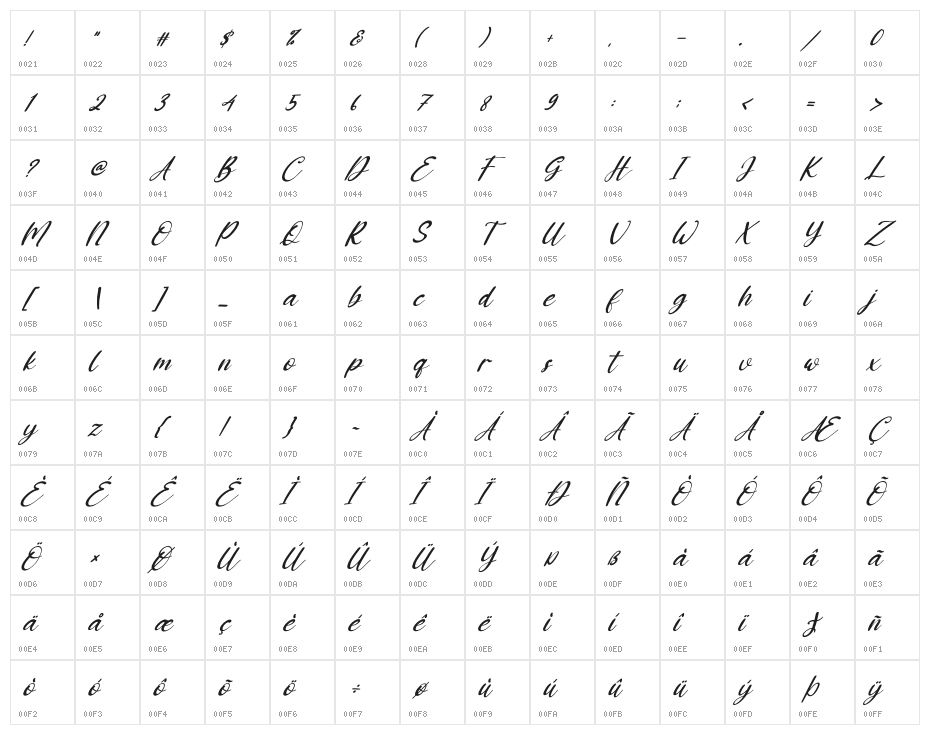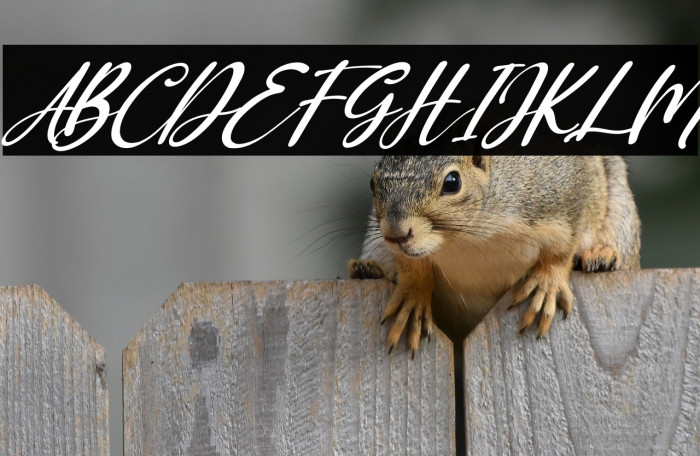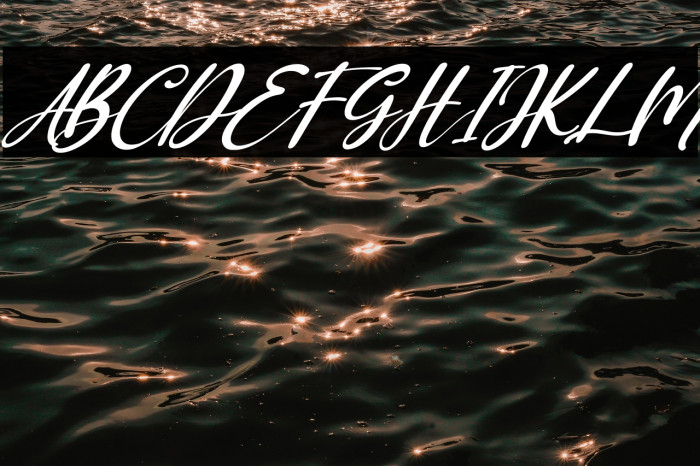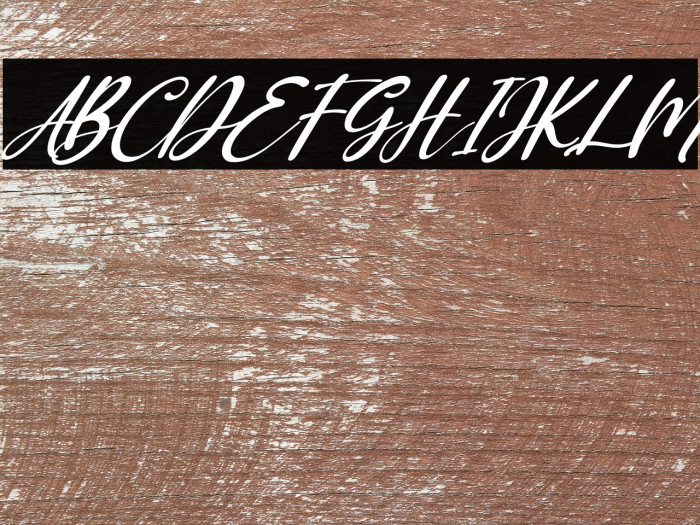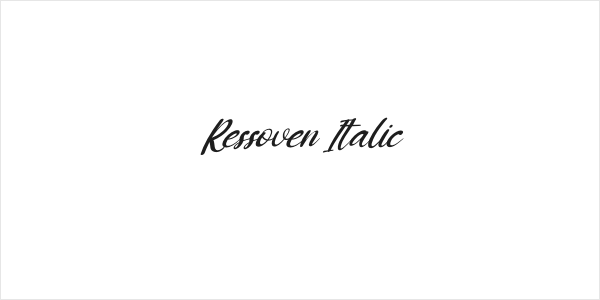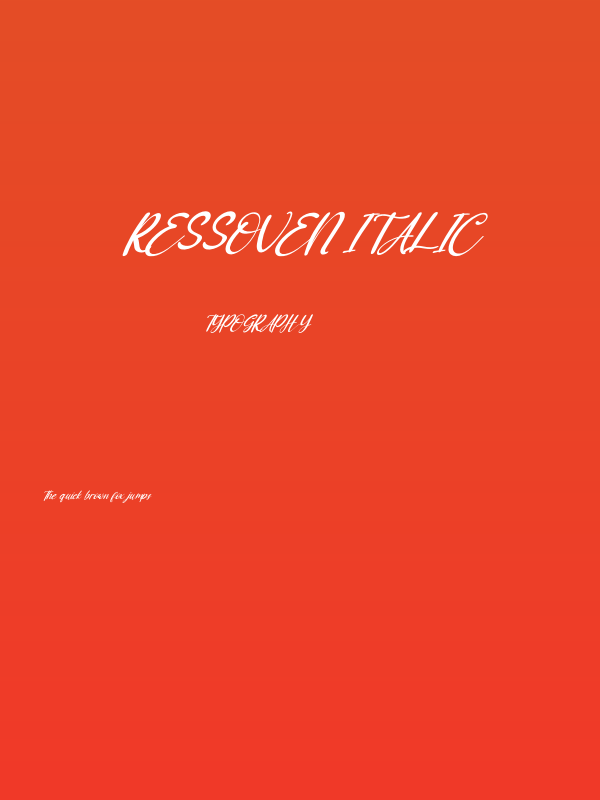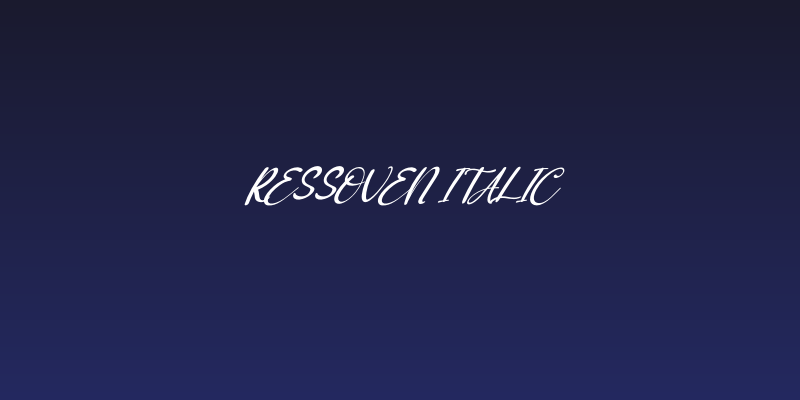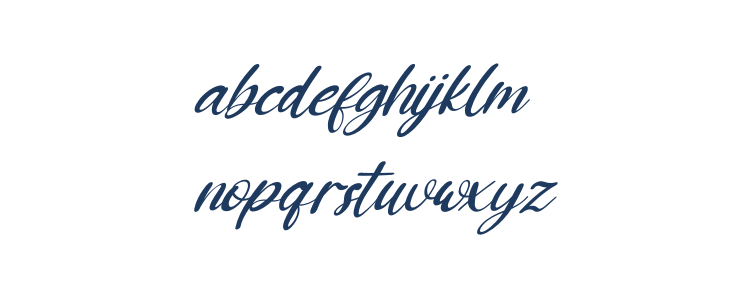
Ressoven Italic Font
Ressoven Italic Description
This font features a flowing, cursive style with elegant, sweeping strokes that convey a sense of sophistication and fluidity. The characters are connected, creating a seamless and continuous appearance. The uppercase letters are bold and prominent, while the lowercase letters maintain a consistent flow. The numerals and special characters are designed to match the overall cursive style, ensuring a cohesive look across all text elements. The italic slant adds a dynamic and expressive touch, making it suitable for creative and artistic projects.
| Overall Style | Elegant, Artistic |
| Proposed Projects | Ideal for wedding invitations, greeting cards, branding, and artistic projects requiring a touch of elegance. |